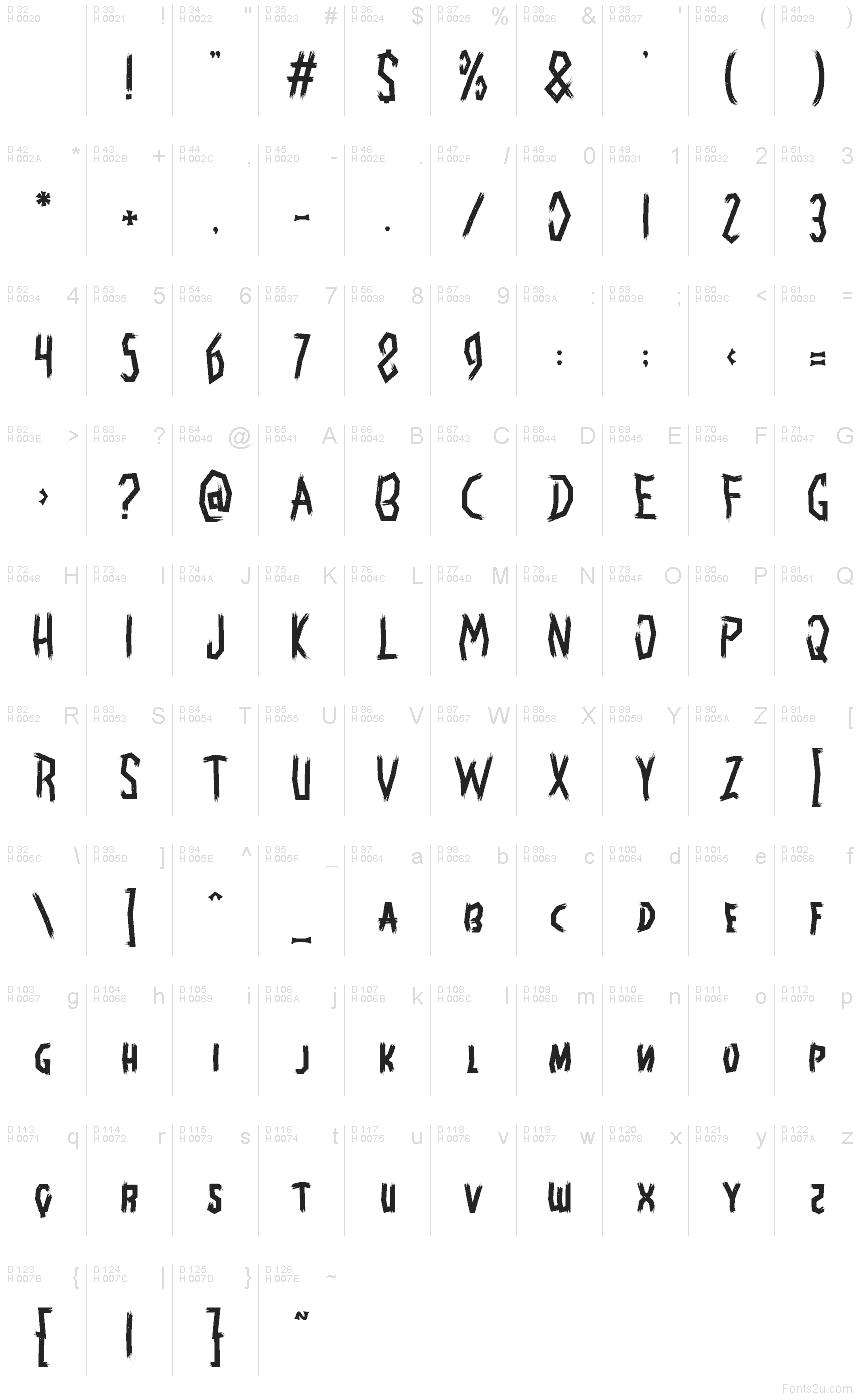
Ghostly Guffaws Broken
Ghostly Guffaws Broken font by PutraCetol Studio is a free Halloween display font. Part of the Ghostly Guffaws family, it leans into splintered strokes and drippy, ragged edges that feel like torn posters left in the rain. The letters lurch with uneven height and crackled contours, delivering spooky energy without losing headline clarity.
Using Ghostly Guffaws Broken, you can punch up haunted house flyers, trick-or-treat posters, party invites, horror thumbnails, yard signs, and seasonal merch. Its jagged rhythm reads big and loud, so scale it generously and keep copy short. Pair this free font with a clean geometric sans for details to sharpen contrast and keep the scare factor focused.